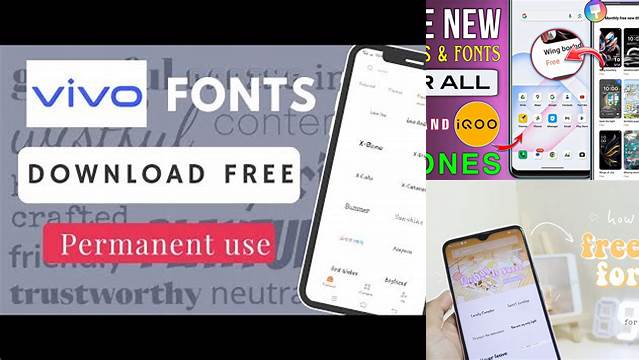
Free Fonts In Vivo Theme Store: A Comprehensive List
Hey guys! Finding the perfect font can totally transform your Vivo phone's vibe, right? The Vivo Theme Store is packed with options, but wading through them can be a drag. That's why we've put together a comprehensive list of free fonts you can snag to give your phone that extra bit of personality. Let's dive in!
1. Exploring Font Variety in Vivo Theme Store
The Vivo Theme Store is like a treasure chest for customizing your phone. It's got themes, wallpapers, and, of course, fonts! What's super cool is the sheer variety you can find. From sleek, modern fonts to quirky, hand-drawn styles, there's something for everyone. Spending time exploring this variety is key to discovering fonts that truly resonate with your personal style. It's not just about finding something that looks good, but also something that enhances readability and overall user experience. Seriously, changing your font can make everything feel fresh and new! Think about how different a serious document looks compared to a fun birthday card – fonts carry emotions and set the tone. So, when you're browsing the Vivo Theme Store, take your time, scroll through the options, and don't be afraid to try out a few different fonts before settling on your favorite. You might just stumble upon something amazing that you never expected!
5. Font Styles: Serif, Sans-Serif, and More
Let's geek out about font styles for a sec! You've got serif fonts, which have those little decorative strokes at the ends of the letters – think Times New Roman. Then there are sans-serif fonts, which are cleaner and more modern – like Arial or Helvetica. But wait, there's more! You've also got script fonts, which look like handwriting; display fonts, which are designed to be eye-catching; and monospace fonts, where each letter takes up the same amount of space. Choosing the right font style depends on the look you're going for. Serif fonts tend to feel more traditional and formal, while sans-serif fonts are more contemporary and minimalist. Script fonts can add a touch of elegance or whimsy, while display fonts are great for headlines and titles. Experiment with different font styles to see what works best for you. And remember, readability is key! A beautiful font is useless if it's hard to read. So, consider the context in which you'll be using the font and choose one that's both visually appealing and easy on the eyes.
6. Best Free Serif Fonts for Vivo
If you're going for a classic, elegant vibe, serif fonts are your best friend. Luckily, the Vivo Theme Store has some fantastic free serif options. Look out for fonts that resemble popular choices like Times New Roman or Georgia. These fonts have a timeless appeal and can add a touch of sophistication to your phone's interface. They're especially great for reading long articles or ebooks on your device, as the serifs can help guide your eye across the page. When choosing a serif font, pay attention to the weight and spacing. A font that's too light or too tightly spaced can be difficult to read. Conversely, a font that's too bold or too widely spaced can look clunky. The goal is to find a balance that's both visually appealing and easy to read. Also, consider the overall aesthetic of your phone's theme. A serif font might not be the best choice if you're using a very modern or minimalist theme. But if you're going for a more traditional or sophisticated look, a well-chosen serif font can be the perfect finishing touch.
7. Top Free Sans-Serif Fonts Available
For a modern and clean look, sans-serif fonts are the way to go. The Vivo Theme Store offers a bunch of free sans-serif options that can give your phone a sleek and contemporary feel. Fonts like Roboto, Open Sans, and Lato are popular choices for their versatility and readability. They work well in a variety of contexts, from menus and notifications to app labels and website text. When choosing a sans-serif font, consider the overall design of your phone's interface. A minimalist theme might benefit from a simple and understated font, while a more colorful and dynamic theme might call for a font with a bit more personality. Also, pay attention to the font's weight and width. A font that's too thin can be difficult to read, while a font that's too wide can look cramped. The ideal sans-serif font should be both visually appealing and easy to read in a variety of sizes and contexts. Experiment with different options to find the perfect fit for your phone.
8. Finding Unique Script Fonts for Free
Want to add a touch of personality and flair to your Vivo phone? Script fonts are a great way to do it! These fonts mimic the look of handwriting and can range from elegant and formal to playful and whimsical. The Vivo Theme Store has a selection of free script fonts to choose from, but finding the right one can take some digging. Look for fonts that are both visually appealing and easy to read. A script font that's too ornate or too difficult to decipher can be frustrating to use. When choosing a script font, consider the context in which you'll be using it. A formal script font might be appropriate for a wedding invitation or a thank-you note, while a more casual script font might be better suited for social media posts or personal messages. Also, keep in mind that script fonts are best used sparingly. Overusing them can make your phone's interface look cluttered and unprofessional. But when used judiciously, a well-chosen script font can add a touch of personality and charm to your Vivo phone.
9. Free Display Fonts to Make Your Phone Pop
Need to grab attention? Display fonts are designed to do just that! These fonts are all about making a statement, with bold designs and eye-catching details. The Vivo Theme Store offers a range of free display fonts that can add a unique touch to your phone's interface. But be warned: display fonts are best used sparingly. Overusing them can make your phone look cluttered and overwhelming. Instead, use them for headlines, titles, or other important elements that you want to stand out. When choosing a display font, consider the overall aesthetic of your phone's theme. A font that's too loud or too distracting can clash with your wallpaper and icons. The goal is to find a font that complements your phone's design and enhances its overall visual appeal. Also, pay attention to the font's readability. A display font that's too difficult to decipher can be frustrating to use. Choose a font that's both visually appealing and easy to read, even at small sizes.
10. Monospace Fonts: Free Options for Developers
Hey developers! Monospace fonts are essential for coding and programming, as they ensure that each character takes up the same amount of horizontal space. This makes it easier to align code and spot errors. The Vivo Theme Store has a few free monospace fonts available, but the selection is often limited. Look for fonts that are specifically designed for coding, with clear and legible characters. These fonts should also be easy on the eyes, as you'll likely be spending a lot of time staring at them. When choosing a monospace font, consider the overall aesthetic of your coding environment. A dark theme might benefit from a light-colored font, while a light theme might call for a dark-colored font. Also, pay attention to the font's size and spacing. A font that's too small or too tightly spaced can be difficult to read, while a font that's too large or too widely spaced can take up too much screen real estate. The ideal monospace font should be both visually appealing and easy to read, even after hours of coding.
11. How Fonts Impact Readability
Fonts aren't just about aesthetics; they play a huge role in readability. A well-chosen font can make reading a pleasure, while a poorly chosen font can make it a chore. When choosing a font, consider the context in which you'll be using it. For long articles or ebooks, a serif font with good spacing and clear letterforms is often the best choice. For website text or app interfaces, a sans-serif font with a clean and modern design might be more appropriate. Also, pay attention to the font's size and weight. A font that's too small or too light can be difficult to read, especially on small screens. Conversely, a font that's too large or too bold can be overwhelming. The goal is to find a balance that's both visually appealing and easy on the eyes. And remember, readability is subjective. What works for one person might not work for another. So, experiment with different fonts until you find one that you find comfortable and easy to read.
12. Customizing Font Size and Weight
Most Vivo phones allow you to customize the font size and weight in the system settings. This is a great way to improve readability and make your phone more comfortable to use. If you have trouble reading small text, increasing the font size can make a big difference. Conversely, if you find that the text is too large or overwhelming, decreasing the font size can help. You can also adjust the font weight to make the text bolder or lighter. A bolder font can be easier to read for some people, while a lighter font can look more elegant and refined. Experiment with different font sizes and weights to find what works best for you. And don't be afraid to change the settings as needed. Your eyes might get tired after a long day of reading, so increasing the font size can provide some relief. The ability to customize font size and weight is a valuable feature that can greatly enhance your phone's usability.
13. Using Fonts to Reflect Your Personality
Your phone is an extension of yourself, so why not use fonts to reflect your personality? The fonts you choose can say a lot about your style and preferences. If you're a fan of classic and elegant designs, a serif font might be the perfect choice. If you prefer a modern and minimalist look, a sans-serif font might be more appropriate. And if you want to add a touch of personality and flair, a script or display font can be a great way to do it. Don't be afraid to experiment with different fonts and styles until you find something that truly resonates with you. And remember, you can always change your font later if you get tired of it. The ability to customize your phone's fonts is a fun and easy way to express your individuality.
14. Font Licensing and Usage Rights
Even free fonts come with licensing and usage rights, so it's important to understand the terms before you start using them. Most free fonts have a license that allows you to use them for personal and commercial purposes, but some fonts might have restrictions on how you can use them. For example, some fonts might not be allowed to be embedded in commercial products, while others might require you to give credit to the font designer. Before you use a font, be sure to read the license agreement carefully to ensure that you're complying with the terms. And if you're unsure about something, it's always best to err on the side of caution and contact the font designer for clarification. Understanding font licensing and usage rights is essential for protecting yourself from legal issues.
15. Installing Fonts from Outside the Theme Store
While the Vivo Theme Store offers a wide selection of fonts, you can also install fonts from outside the Theme Store. This gives you access to an even wider range of fonts and styles. However, installing fonts from outside the Theme Store can be a bit more complicated. You'll need to download the font file to your phone and then use a font installer app to install it. Be sure to download fonts from trusted sources to avoid downloading malware or other harmful software. Also, keep in mind that installing fonts from outside the Theme Store might void your phone's warranty. So, proceed with caution. If you're comfortable with the risks, installing fonts from outside the Theme Store can be a great way to customize your phone's fonts and express your individuality.
16. Troubleshooting Font Issues on Vivo
Sometimes, things go wrong. Fonts might not display correctly, or they might cause other issues on your phone. If you encounter any font issues, there are a few things you can try to troubleshoot the problem. First, try restarting your phone. This can often fix minor software glitches. Second, check to see if the font is compatible with your phone's model and operating system. Some fonts might not work on older devices. Third, try uninstalling and reinstalling the font. This can sometimes fix corrupted font files. If none of these steps work, you might need to contact Vivo support for assistance. Troubleshooting font issues can be frustrating, but with a little patience and persistence, you can usually resolve the problem.
17. Managing Multiple Fonts on Your Device
If you're a font enthusiast, you might have dozens of fonts installed on your Vivo phone. Managing multiple fonts can be a challenge, especially if you're running out of storage space. To keep your font collection organized, consider using a font manager app. These apps allow you to browse, preview, and uninstall fonts with ease. You can also use them to group fonts into collections or create custom font sets. When managing multiple fonts, it's important to keep track of the fonts' licensing and usage rights. Be sure to read the license agreement for each font to ensure that you're complying with the terms. And if you're not using a font, it's a good idea to uninstall it to free up storage space. Managing multiple fonts can be time-consuming, but it's essential for keeping your phone running smoothly.
18. The Future of Font Customization on Smartphones
The future of font customization on smartphones looks bright! With the increasing popularity of mobile devices, font designers are creating more and more fonts specifically for mobile use. These fonts are designed to be legible on small screens and to work well with touch interfaces. In the future, we can expect to see even more sophisticated font customization options on smartphones, such as the ability to adjust the font's kerning, tracking, and leading. We might also see the integration of artificial intelligence into font customization, with AI algorithms suggesting fonts based on your personal preferences and usage patterns. The possibilities are endless! The future of font customization on smartphones is all about personalization and convenience.
19. Font Pairing: Combining Fonts Effectively
Font pairing is the art of combining two or more fonts to create a visually appealing and harmonious design. When done well, font pairing can enhance the overall look and feel of your phone's interface. However, when done poorly, it can create a jarring and unprofessional effect. To pair fonts effectively, it's important to choose fonts that complement each other. For example, you might pair a serif font with a sans-serif font, or a bold font with a light font. The goal is to create a contrast that's both visually interesting and easy on the eyes. There are many resources available online that can help you learn more about font pairing. You can also experiment with different font combinations to see what works best for you. Font pairing is a skill that takes practice to master, but the results are well worth the effort.
20. Free Font Resources Outside of Vivo Theme Store
While the Vivo Theme Store is a great place to find free fonts, there are also many other free font resources available online. Websites like Google Fonts, Font Squirrel, and DaFont offer a vast selection of free fonts that you can download and use on your Vivo phone. However, it's important to be careful when downloading fonts from these websites. Be sure to download fonts from trusted sources to avoid downloading malware or other harmful software. Also, keep in mind that some free fonts might have licensing restrictions. Be sure to read the license agreement carefully before using a font. With a little caution and research, you can find a wealth of free fonts outside of the Vivo Theme Store.
21. How to Preview Fonts Before Applying
Before you apply a new font to your Vivo phone, it's always a good idea to preview it first. This allows you to see how the font will look on your phone's interface and to make sure that it's legible and visually appealing. Most font installer apps and theme stores offer a preview feature that allows you to see the font in action before you commit to installing it. Take advantage of this feature to avoid installing fonts that you don't like. When previewing a font, pay attention to its size, weight, and spacing. Make sure that it's easy to read and that it complements your phone's overall design. Previewing fonts before applying them is a simple but effective way to ensure that you're happy with your phone's font customization.
22. Understanding Font File Formats (TTF, OTF)
Fonts come in various file formats, with TTF (TrueType Font) and OTF (OpenType Font) being the most common. TTF is an older format that's widely supported, while OTF is a newer format that offers more advanced features. Both TTF and OTF fonts can be used on Vivo phones, but OTF fonts are generally preferred for their superior quality and versatility. When downloading fonts, be sure to choose the correct file format for your phone. If you're not sure which format to choose, TTF is usually a safe bet. Understanding font file formats can help you avoid compatibility issues and ensure that your fonts display correctly on your phone.
23. The Impact of Fonts on User Experience
Fonts have a significant impact on user experience. A well-chosen font can make your phone's interface more readable, visually appealing, and user-friendly. Conversely, a poorly chosen font can make your phone difficult to use and frustrating to look at. When choosing a font, consider the needs of your users. If you're designing an app or website, choose a font that's easy to read and that complements the overall design. If you're customizing your phone's fonts, choose fonts that you find comfortable and visually appealing. The impact of fonts on user experience should not be underestimated. A good font can make all the difference in the world.
24. Font Copyright and Intellectual Property
Fonts are intellectual property, and they are protected by copyright law. This means that you cannot copy, distribute, or modify fonts without the permission of the font designer. When using fonts, it's important to respect the copyright and intellectual property rights of the font designer. If you're not sure whether you have the right to use a font, it's always best to err on the side of caution and contact the font designer for clarification. Violating font copyright can result in legal penalties, so it's important to be aware of the rules. Font copyright and intellectual property are important considerations for anyone who uses fonts.
25. Creating Your Own Custom Fonts
If you're feeling creative, you can even create your own custom fonts! There are many font creation tools available online that allow you to design your own fonts from scratch. These tools typically provide a user-friendly interface that allows you to draw each letterform and adjust its size, weight, and spacing. Creating your own custom fonts can be a fun and rewarding experience. It allows you to express your creativity and to create fonts that are perfectly tailored to your needs. However, creating high-quality fonts takes time and effort. It's important to have a good understanding of typography and design principles. If you're willing to put in the work, creating your own custom fonts can be a great way to personalize your Vivo phone.
26. Font Design Trends to Watch
Font design is constantly evolving, with new trends emerging all the time. Some of the font design trends to watch include variable fonts, geometric sans-serifs, and retro-inspired fonts. Variable fonts allow you to adjust various font properties, such as weight and width, to create a wide range of variations from a single font file. Geometric sans-serifs are characterized by their clean lines and minimalist designs. Retro-inspired fonts evoke the look and feel of vintage typography. Keeping up with font design trends can help you stay ahead of the curve and create designs that are both modern and visually appealing.
27. Accessibility Considerations for Fonts
When choosing fonts, it's important to consider accessibility. Some fonts are more accessible than others, especially for people with visual impairments. Accessible fonts typically have clear letterforms, good spacing, and high contrast. They are also available in a variety of sizes and weights. When designing apps or websites, it's important to choose fonts that are accessible to all users. This can help to ensure that everyone can access and understand your content. Accessibility considerations for fonts are an important part of creating inclusive designs.
28. How to Back Up Your Favorite Fonts
If you've spent a lot of time finding and installing your favorite fonts, it's a good idea to back them up. This will protect you from losing your fonts if you accidentally delete them or if your phone malfunctions. There are several ways to back up your fonts. You can copy the font files to your computer or to a cloud storage service. You can also use a font manager app to create a backup of your font collection. Backing up your favorite fonts is a simple but effective way to protect your investment.
29. The Psychology of Fonts: What They Communicate
Fonts can communicate different emotions and messages. Serif fonts often convey a sense of tradition and authority, while sans-serif fonts tend to be seen as modern and approachable. Script fonts can evoke feelings of elegance and creativity, while display fonts are often used to grab attention and make a statement. Understanding the psychology of fonts can help you choose fonts that are appropriate for your brand and message. When designing a logo, website, or app, consider the emotions and messages that you want to convey and choose fonts that align with those goals. The psychology of fonts is a powerful tool for communication.
30. Maximizing the Use of Free Fonts on Vivo
Okay, guys, let's wrap this up! To maximize your use of free fonts on your Vivo, remember to explore the Theme Store, check compatibility, and think about the message you want to send with your font choice. Don't be afraid to experiment and have fun with it! Your phone is your canvas, so go wild and make it your own!